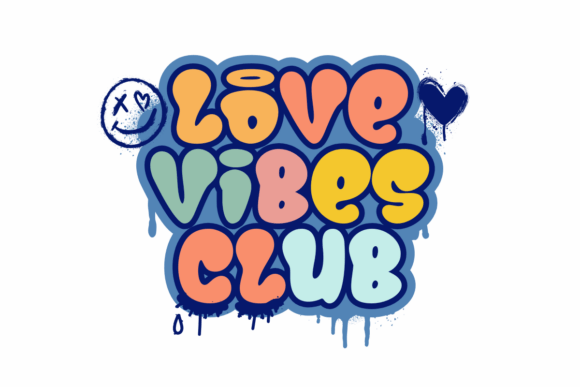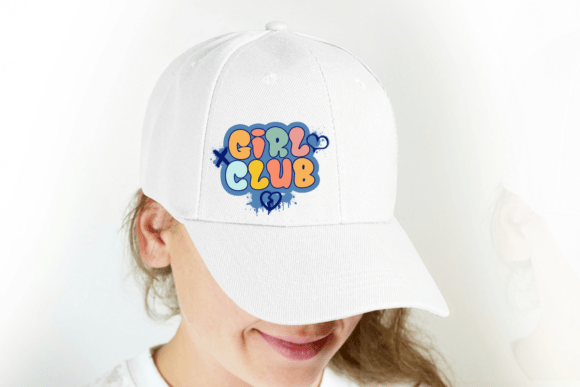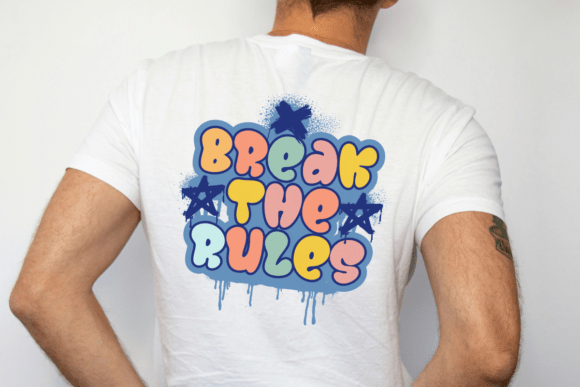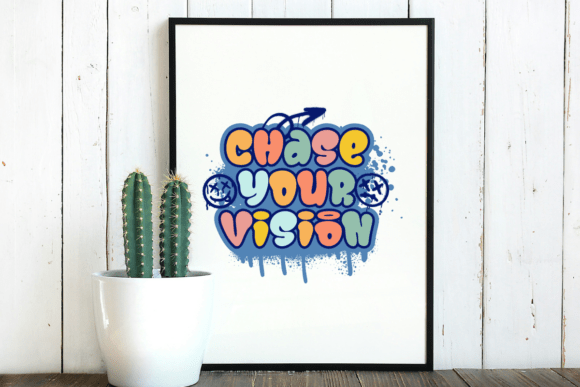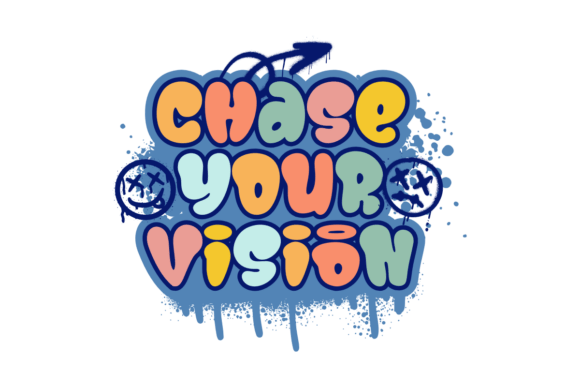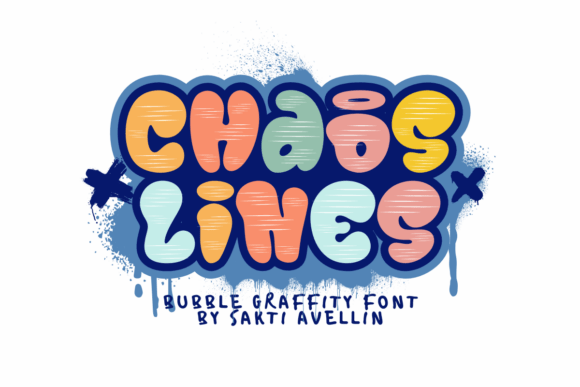
Unlock the Magic of Creative Expression
Have you ever been stuck in a design rut, yearning for that spark of inspiration to breathe new life into your project? It’s a feeling we’ve all experienced, but what if I told you that there’s a secret to unlocking your full creative potential? Meet the enchanting Chaos Lines Font, a hand-sculpted bubble graffiti font that’s about to revolutionize the way you approach design.
With Chaos Lines Font, the possibilities are endless. Whether you’re a seasoned designer or a DIY enthusiast, this captivating typeface is the perfect tool to add a touch of whimsy and charm to your creations. From eye-catching posters to stylish brand identities, Chaos Lines Font is the key to unlocking your artistic expression and taking your designs to the next level.
Chaos Lines Font Key Features
- Font Family: Chaos Lines is a unique, hand-drawn font with an artistic flair, making it ideal for creative projects.
- Unique Characteristics: Chaos Lines features hand-drawn lines, imperfections, and subtle texture, giving it a distinctive, organic feel.
- Style Options: Includes various style options, such as bold, italic, and regular, to cater to different design needs.
Chaos Lines Font Review
Overall, I’m impressed with the Chaos Lines font. It’s a unique and creative addition to any design project. ✨ The font’s distressed, handwritten feel adds a touch of personality to text, making it perfect for branding, advertising, and editorial content. ✨
Some of the font’s key strengths include its:
- High level of customizability, allowing designers to adjust line width, spacing, and more to suit their needs.
- Versatility, suitable for use in both digital and print media.
- Expressive, artistic feel that can add a touch of sophistication to any design.
However, there are some limitations to consider. ⚠️ The font may not be the best choice for projects requiring a more formal, traditional look. Additionally, some users may find the font’s irregularities and variations challenging to work with, particularly in situations where precise typography is essential.
Overall, I would recommend the Chaos Lines font to designers looking to add a touch of creativity and personality to their projects. While it may not be suitable for every project, it’s a valuable addition to any designer’s toolkit.
Tips for Getting the Most Out of the Chaos Lines Font
The Chaos Lines font is ideal for creating a sense of movement and energy in your designs. To get the most out of it, use it in combination with bold colors and dynamic graphics.
The Chaos Lines font is commonly used in:
- Music and entertainment branding
- Event promotion materials
- Dynamic and energetic marketing campaigns
Alternative Fonts to Chaos Lines
Great Vibes Font is a beautiful, handwritten script font. It is ideal for use in titles, headings, and quotes where you want to add a touch of elegance and sophistication. It is a more refined alternative to Chaos Lines Font, with a more consistent and flowing style.
Alex Brush Font is a elegant, brush script font. It is suitable for use in invitations, cards, and other formal documents where you want to add a touch of luxury and sophistication. It is similar to Chaos Lines Font in terms of its flowing and handwritten style, but has a more refined and polished look.
Dancing Script Font is a playful, handwritten script font. It is ideal for use in titles, headings, and quotes where you want to add a touch of whimsy and fun. It is a more casual alternative to Chaos Lines Font, with a more playful and energetic style.
Carolyna Pro Font is a modern, elegant script font. It is suitable for use in titles, headings, and quotes where you want to add a touch of sophistication and style. It is a more refined alternative to Chaos Lines Font, with a more consistent and flowing style, but has a more modern and sleek look.